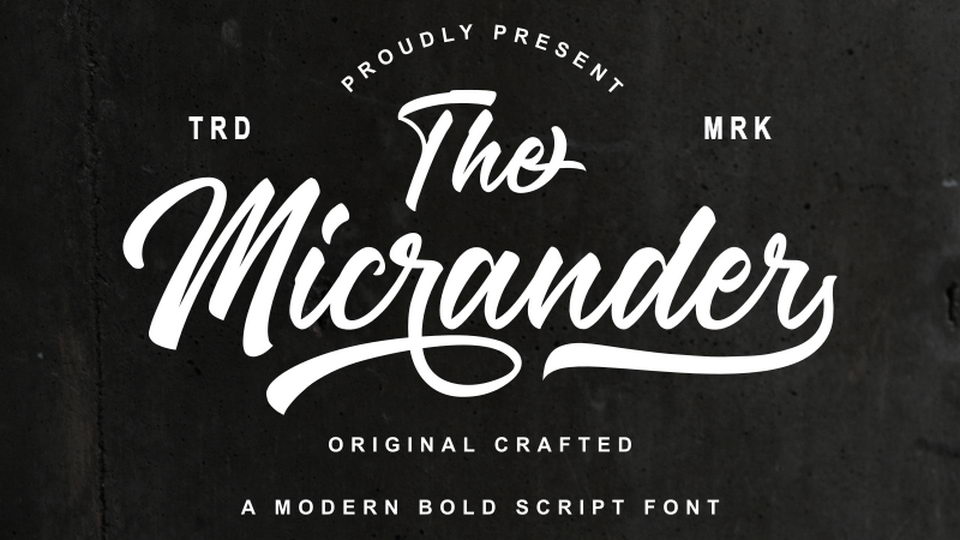
Feb 11, 2025Script & HandwrittenThe Micrander Script The Micrander is a modern bold handwritten script font. It’s perfect for creating logos, watermarks, label, quotes. The Micrander is great for turning any design project into a true standout. Font DetailsDesigned by: R StudioWebsiteLicense: Free for personal use Download The Micrander ScriptFile size: 38.46 KBCreated: February 16, 2025Updated: February 16, 2025 Download Explore similar fonts Shorebreak Script Font Oldisire Script Font Maison Des Pastel Script Font Amora Point Font Wilmine Font Peach Club Font Family # Cursive# Handwriting# Lettering# Vintage More fonts by R StudioRetrofest ScriptBrigest ScriptSeattle ScriptAngelita ScriptSecret Halloween FontSilverstain ScriptAmelya FontClareta Script